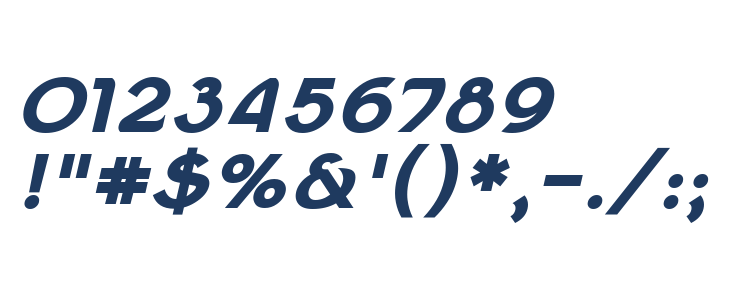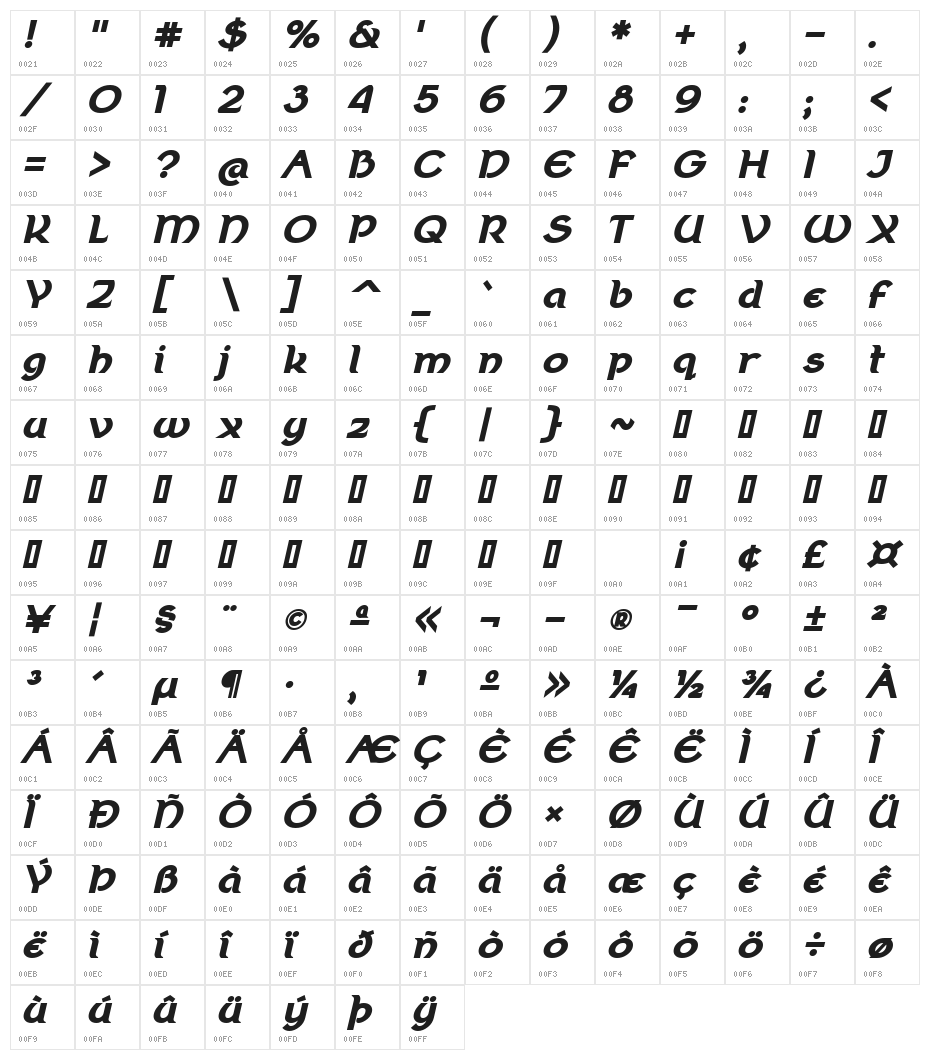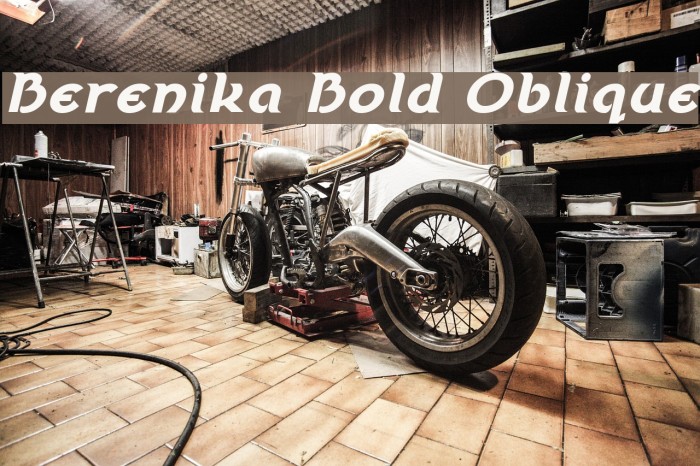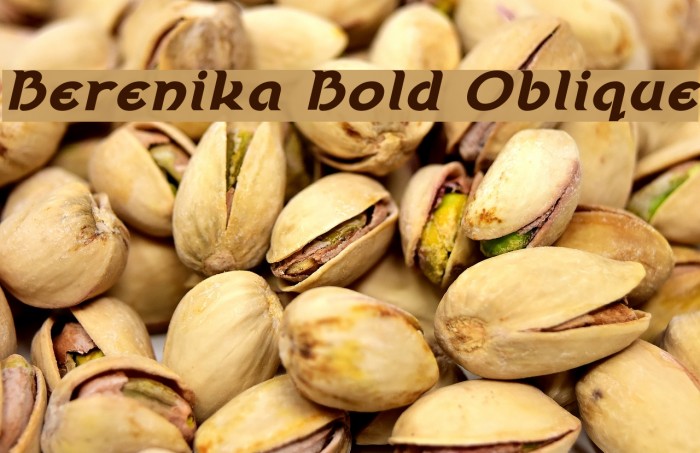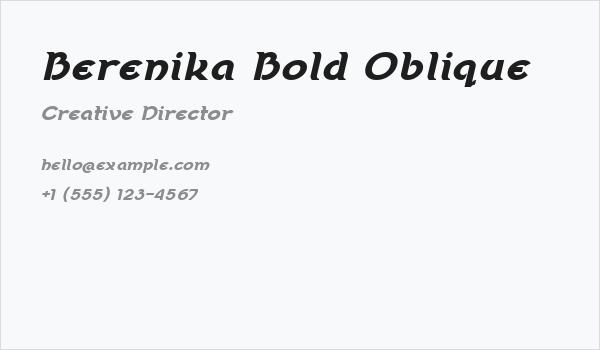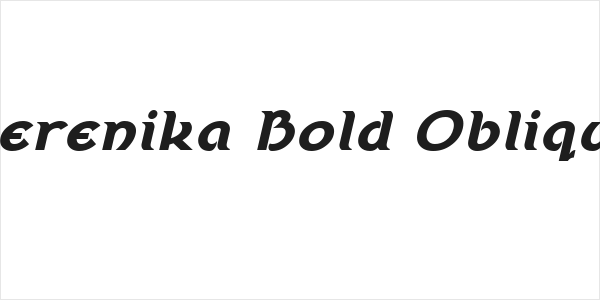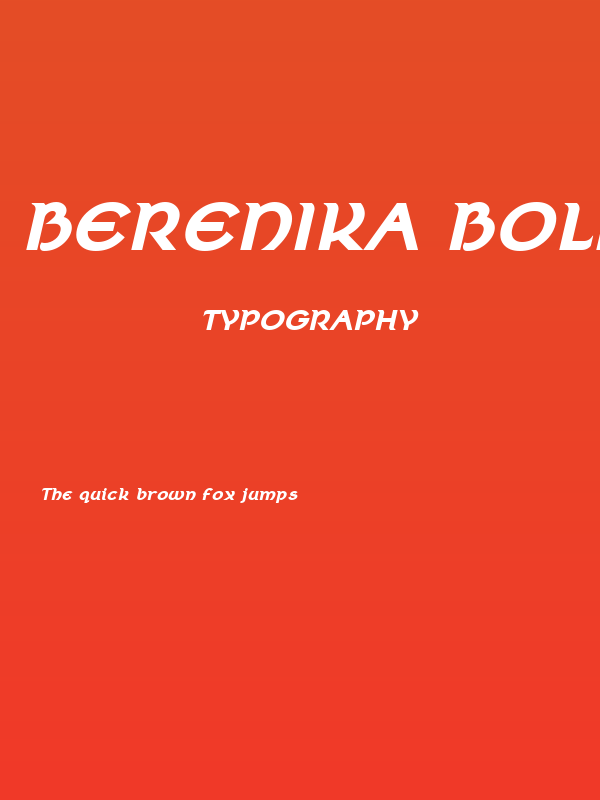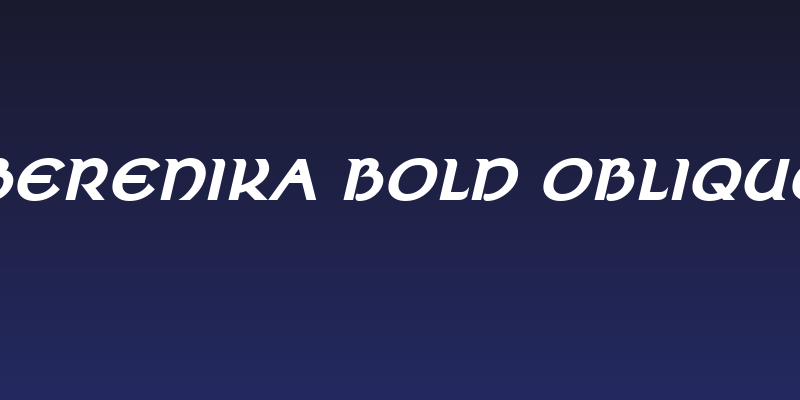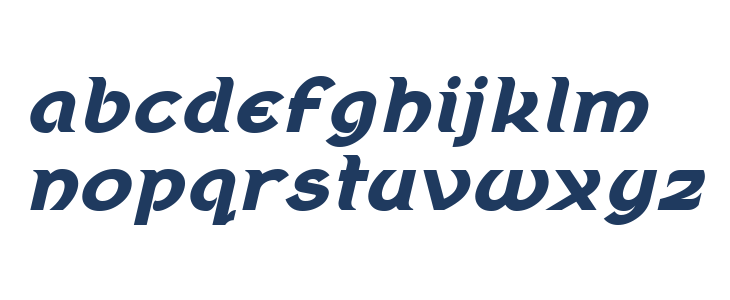
Berenika Bold Oblique Font
Berenika Bold Oblique Description
This font features a bold and oblique style, characterized by its strong and dynamic slant. The letters have a smooth, flowing appearance with rounded edges, giving it a modern and energetic feel. The uppercase and lowercase letters maintain a consistent style, with the lowercase letters slightly more compact. The numerals are clear and bold, matching the overall aesthetic. Special characters are well-integrated, maintaining the font's cohesive look. The font's boldness and slant make it stand out, suitable for attention-grabbing designs.